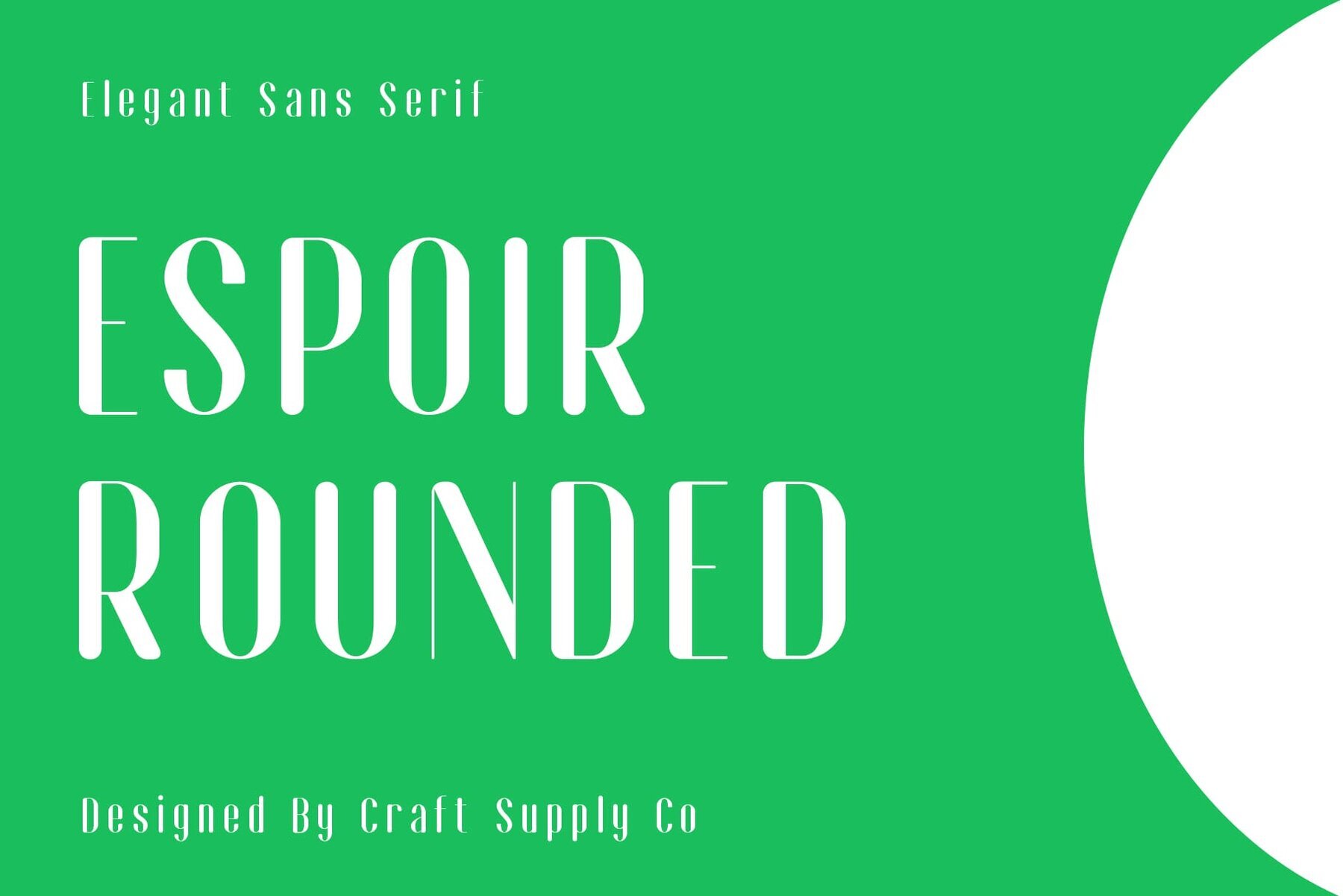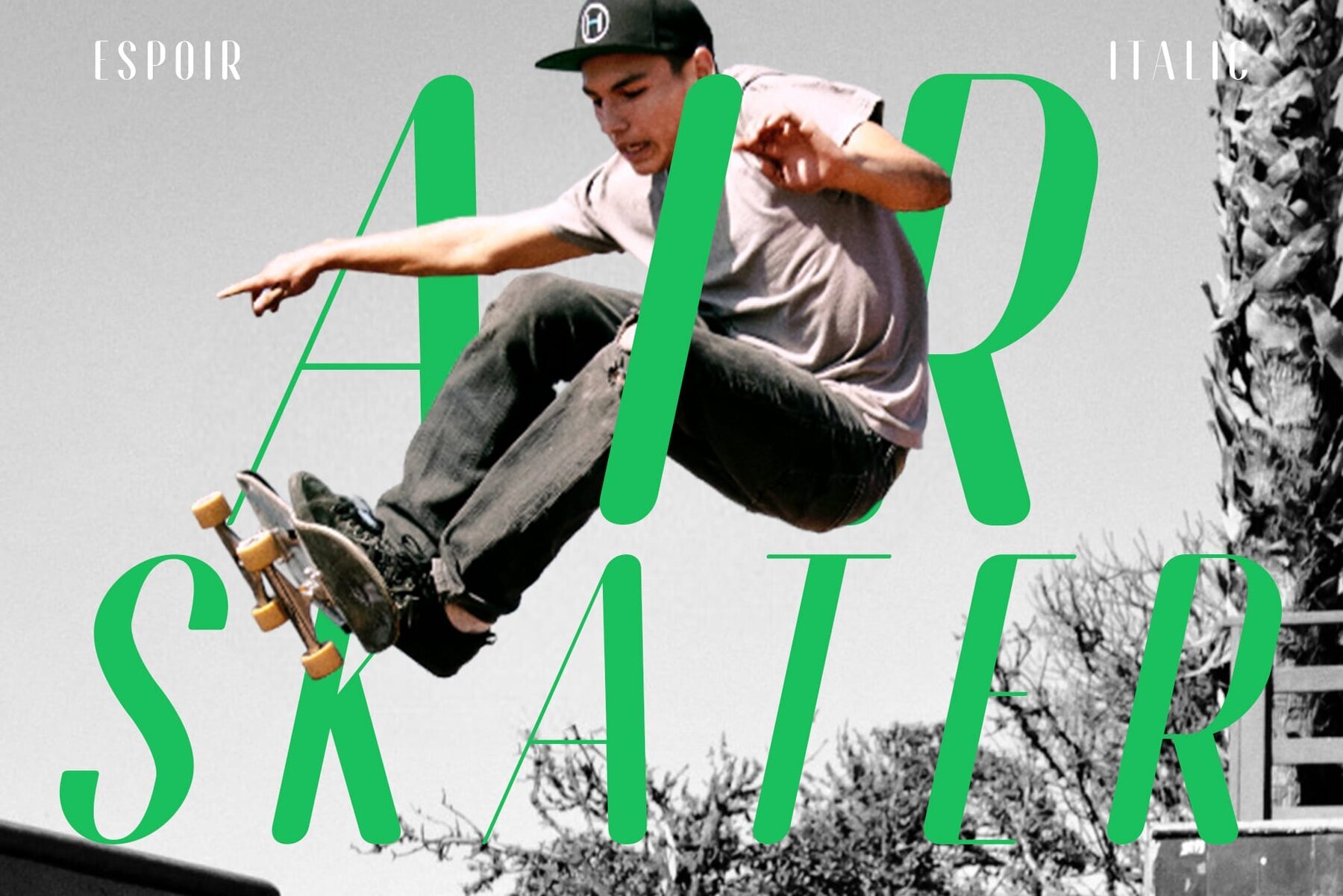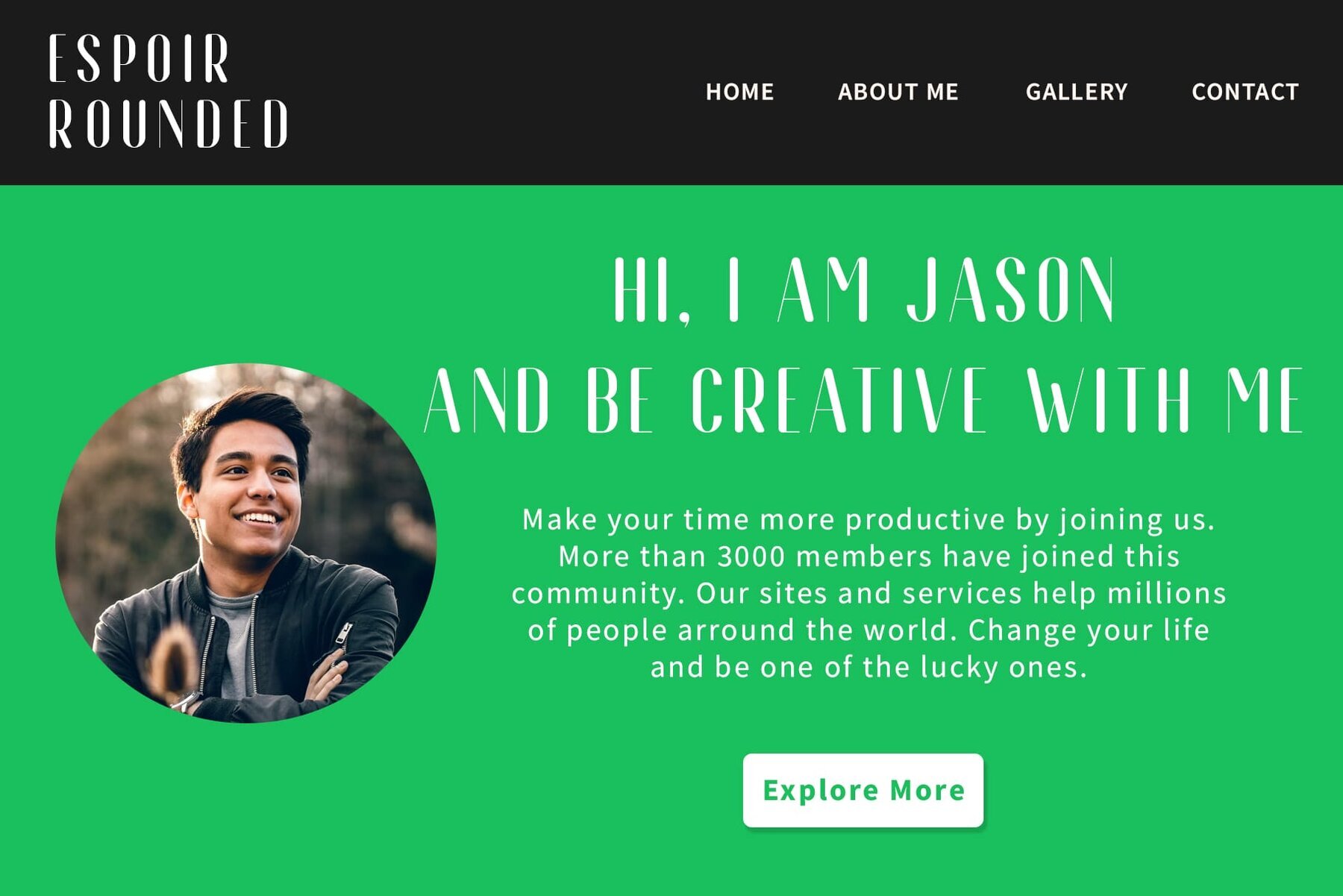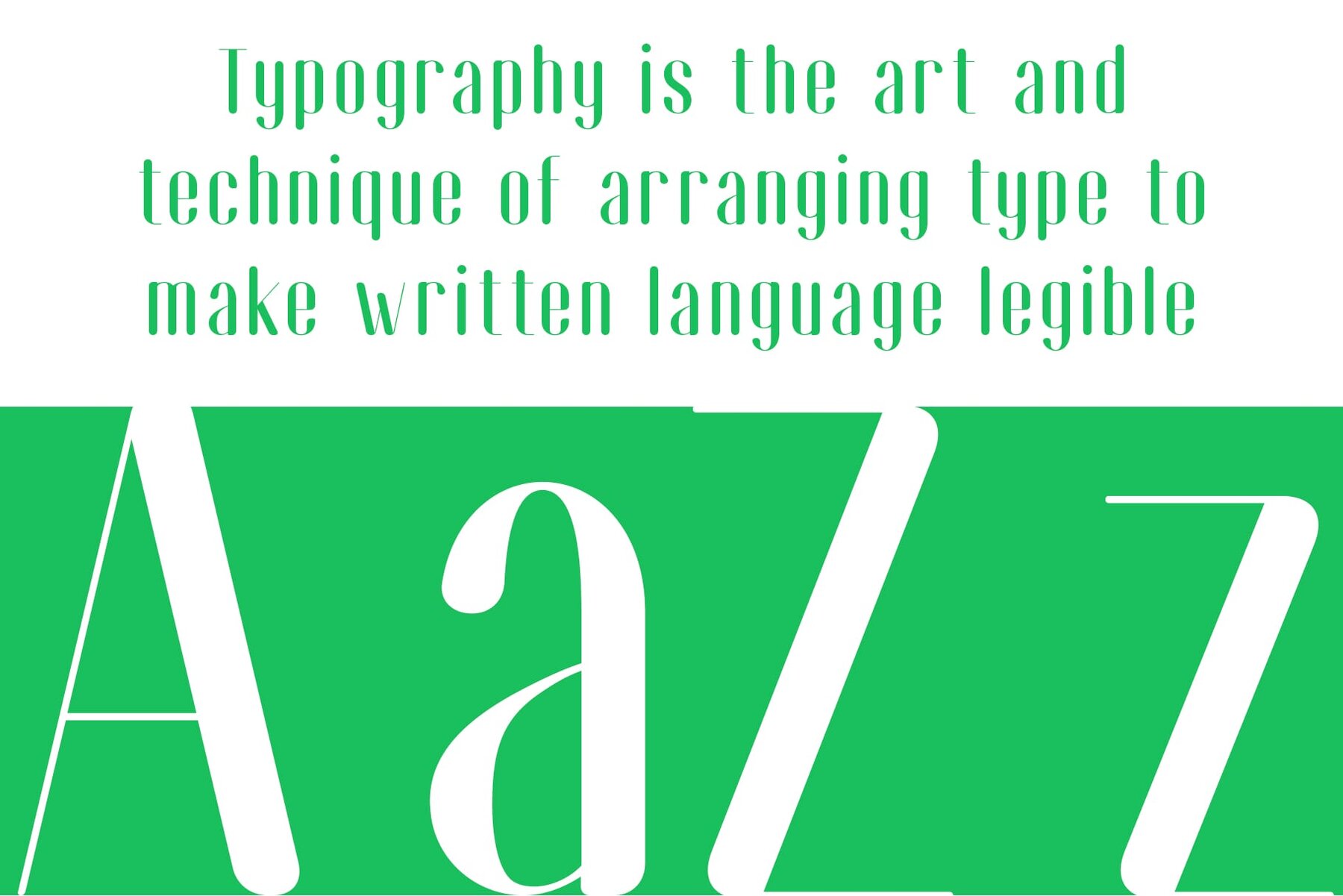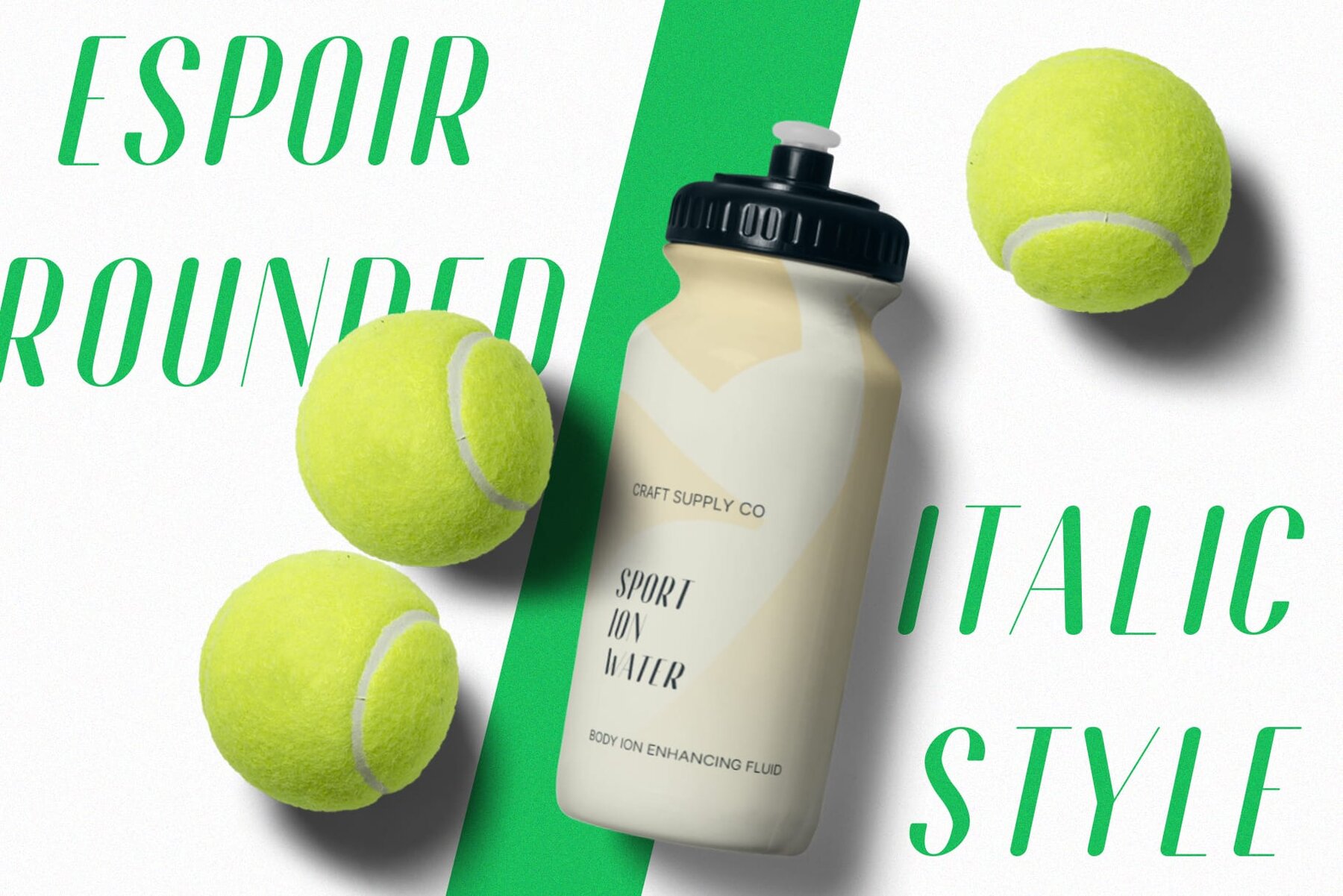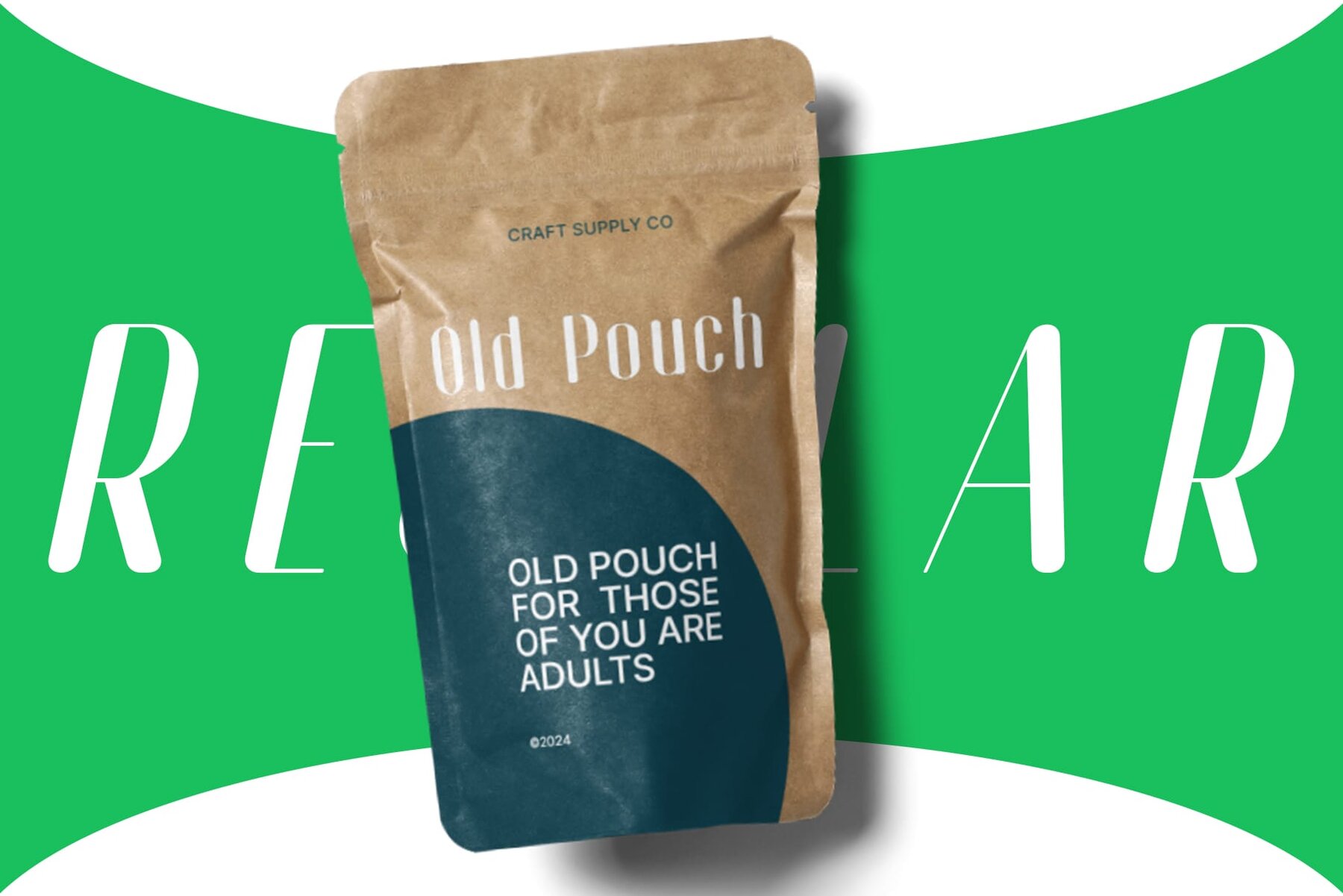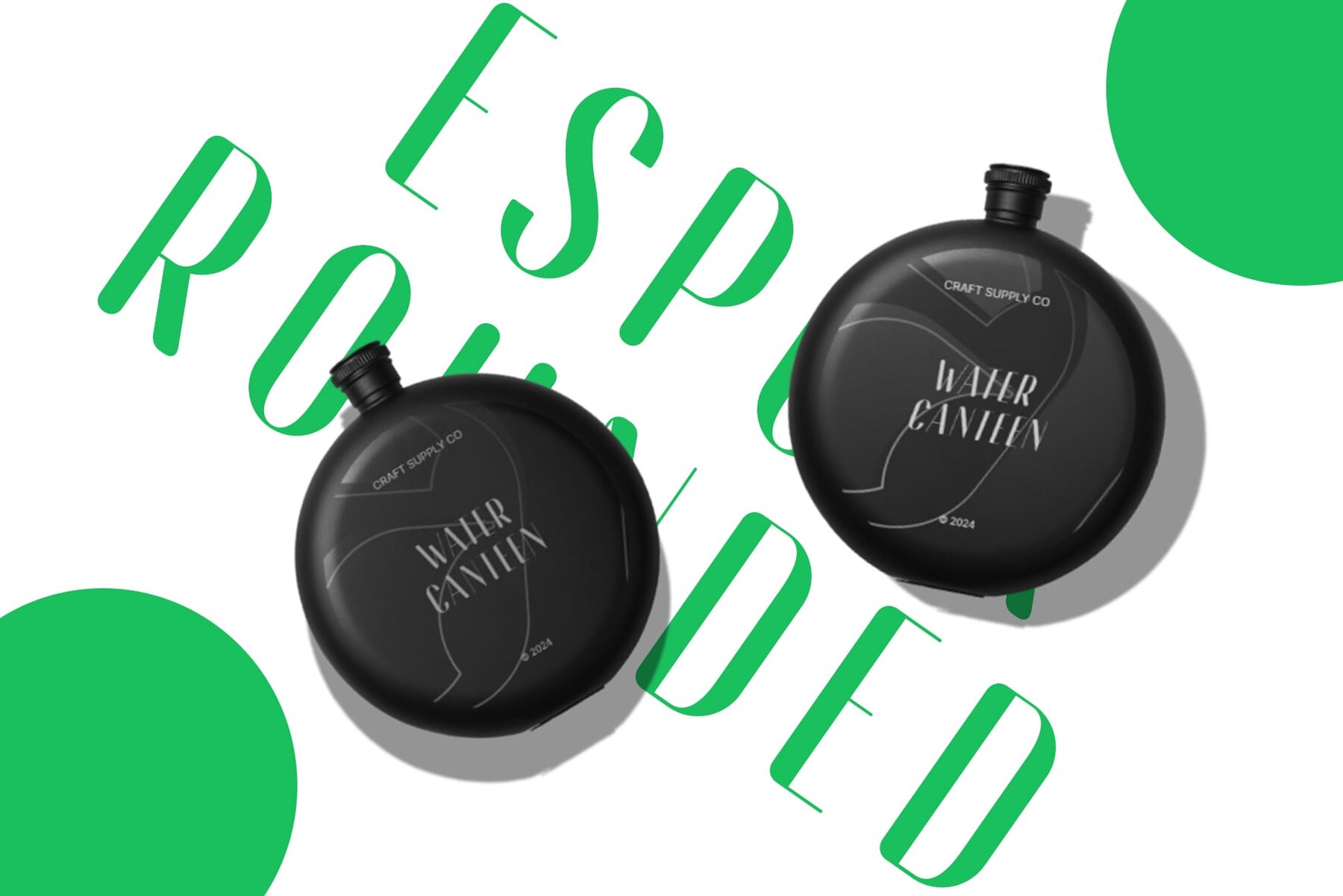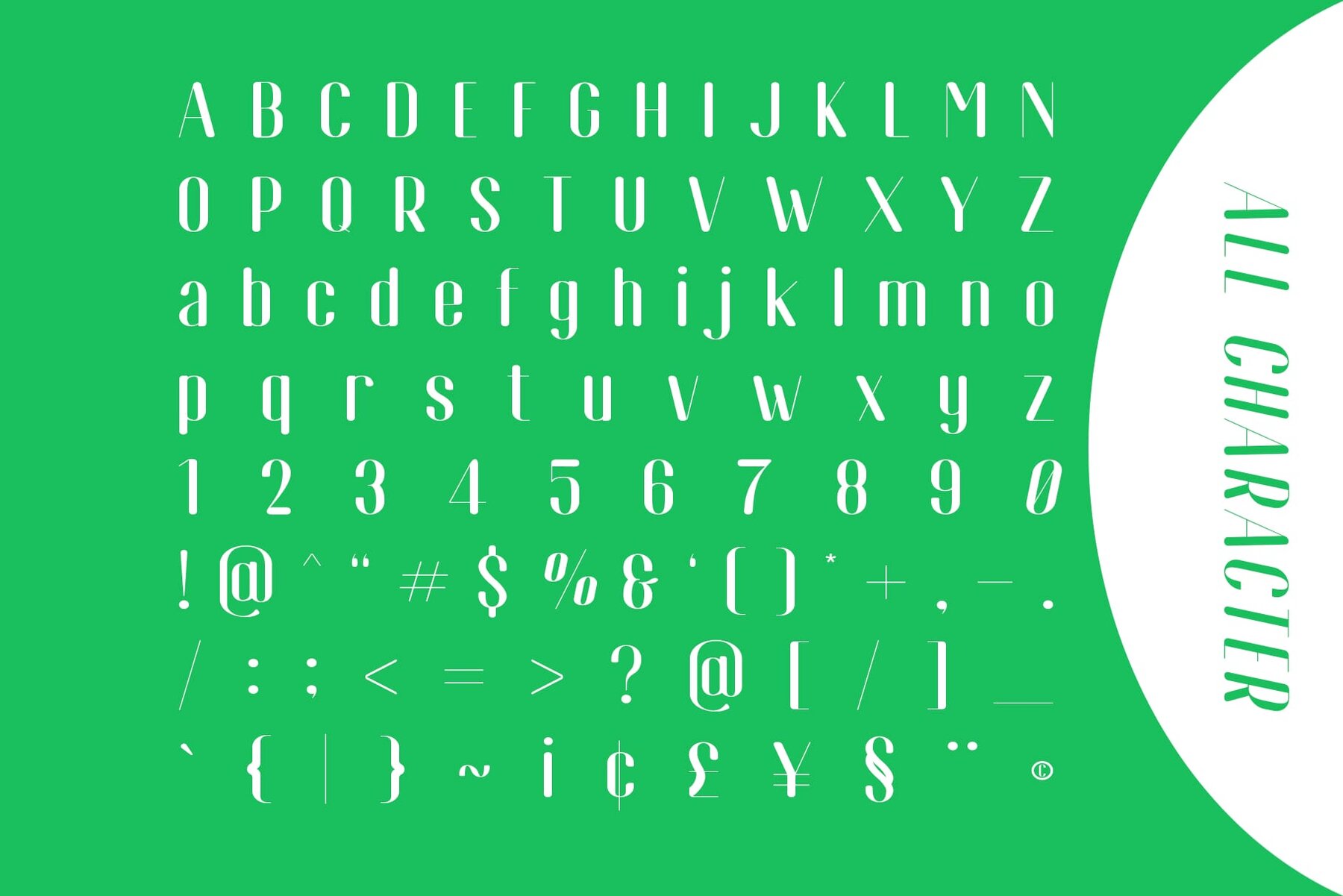
Espoir Rounded Font
This typeface presents a modern, geometric sans-serif design that is characterized by its clean, minimalist lines, and high-contrast letterform weight. It strikes a balance between functional versatility and aesthetic sophistication, making it an excellent choice for both display and text setting in contemporary graphic design projects. Its monolinear strokes and streamlined appearance lend to its legibility and dynamic visual impact.